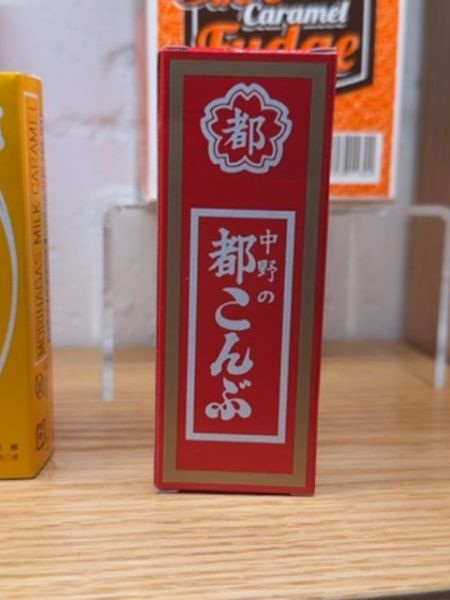
都こんぶ
A traditional Japanese kelp (konbu) snack known for its unique umami flavor. It is often enjoyed as a savory treat or used in cooking to enhance flavor.
The typography uses traditional Japanese kanji and kana characters. The font is bold and has a handwritten quality, which adds to the authenticity and traditional feel of the product. The white text contrasts sharply against the red background, enhancing readability and impact.
The packaging is a vibrant red color, accented with gold and white elements. The bold colors are distinct and eye-catching, with a traditional aesthetic that reflects the cultural origins of the product.